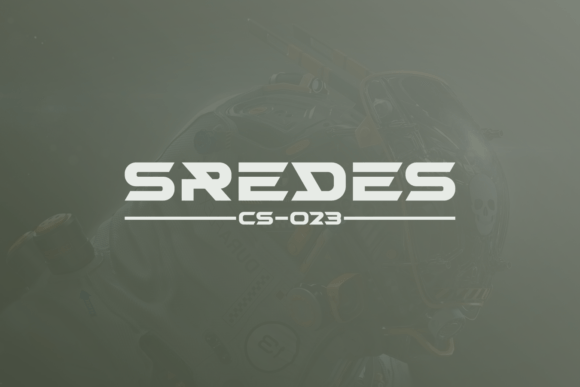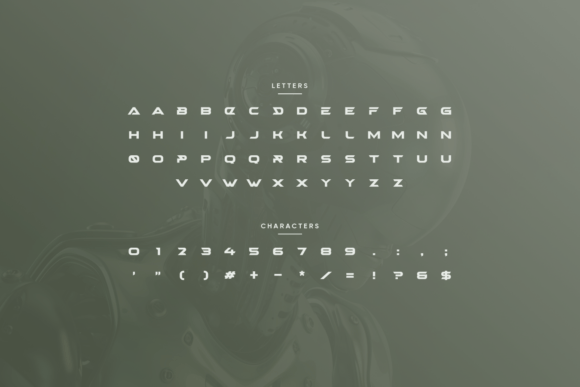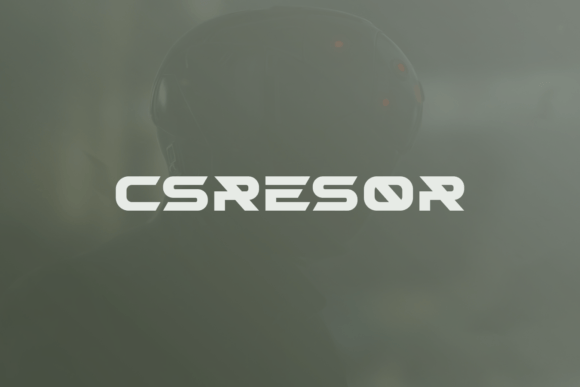
Introduction to Resrics Font
Resrics is a futuristic font that we designed with an original touch for your needs.
This cool font comes with all-caps, numeric & symbols, this powerful and sophisticated font Resrics is perfect for your logo, headline, typography, poster, magazine, brochure, packaging, websites and many more for your design needs, it will make your designs more cool and stand out.
Resrics Font offers exceptional quality and versatility, making it a valuable addition to your design toolkit. Whether you’re creating for personal projects or commercial use, Resrics Font delivers professional results.